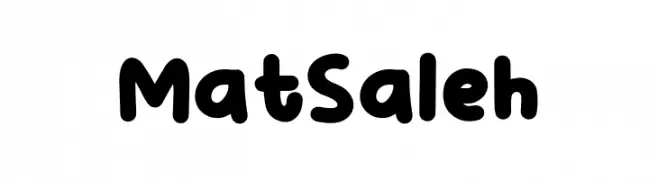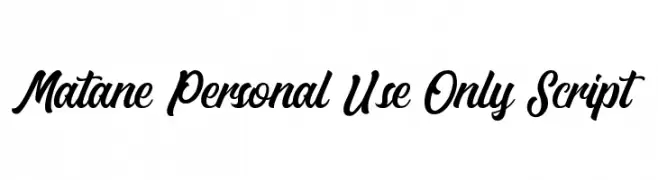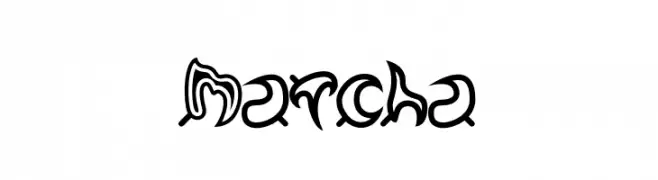
A playful, bold font with rounded, bubble-like characters.
A playful, bold font with rounded, bubbly characters and a friendly appearance.
A dynamic and elegant script font with bold, flowing curves.
A bold, cursive script font with fluid, interconnected letters.
A graceful script font with fluid, connected cursive strokes.
A bold, handwritten font with a playful and energetic style.
A bold, decorative font with swirling, curvilinear forms and dynamic style.